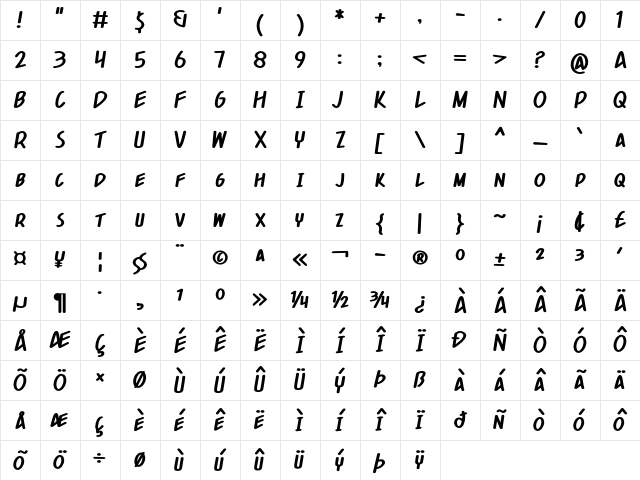
Uni Gogi Bold
Uni Gogi Family
Uni Gogi Bold
Complete Uni Gogi Bold glyph index. Displaying only characters natively supported by Uni Gogi Bold font.
Design Context for Uni Gogi
Uni Gogi is a composed and adaptable typeface that performs quietly and consistently across a wide range of design contexts. Its bold stroke weight gives it real presence on the page.